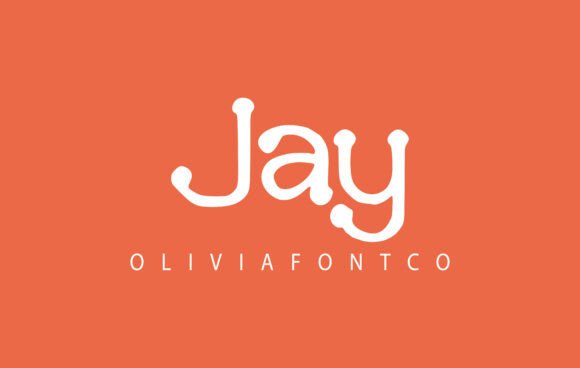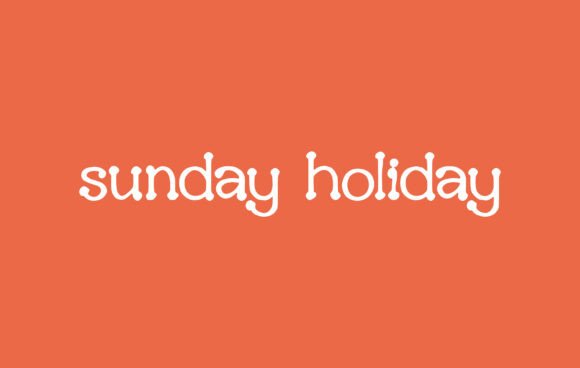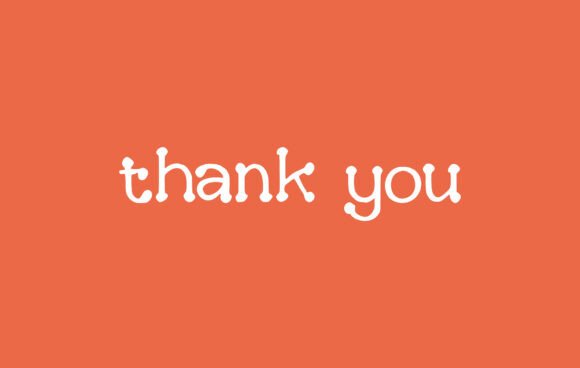
Jay Font: A Modern Sans Serif for Minimalist Logo Design
About the Jay Font
The Jay Font is here to transform your projects with its distinctive character and style. Jay is a modern, soft sans serif with unique letterforms and rounded terminals that give it a friendly, contemporary feel. Great for logos, minimalist branding, editorial designs, and children’s products.
Its soft curves and rounded forms make Jay ideal for headlines, short blocks of text, and branding applications where a friendly, approachable aesthetic is desired. It works exceptionally well for children’s products, logos, and packaging designs requiring a modern yet approachable feel. However, its low x-height makes it less suitable for body text or long paragraphs; readability suffers at smaller sizes.
Consider pairing Jay with a geometric sans-serif like Futura for a balanced contrast of form, or a classic serif like Garamond for a touch of elegance and sophistication. For a more playful feel, a handwritten script like Pacifico could be used as an accent font.
Jay’s overall personality is best described as friendly and contemporary, conveying approachability and a modern sensibility. Brands targeting a younger demographic or those emphasizing playfulness and warmth would find it particularly effective.